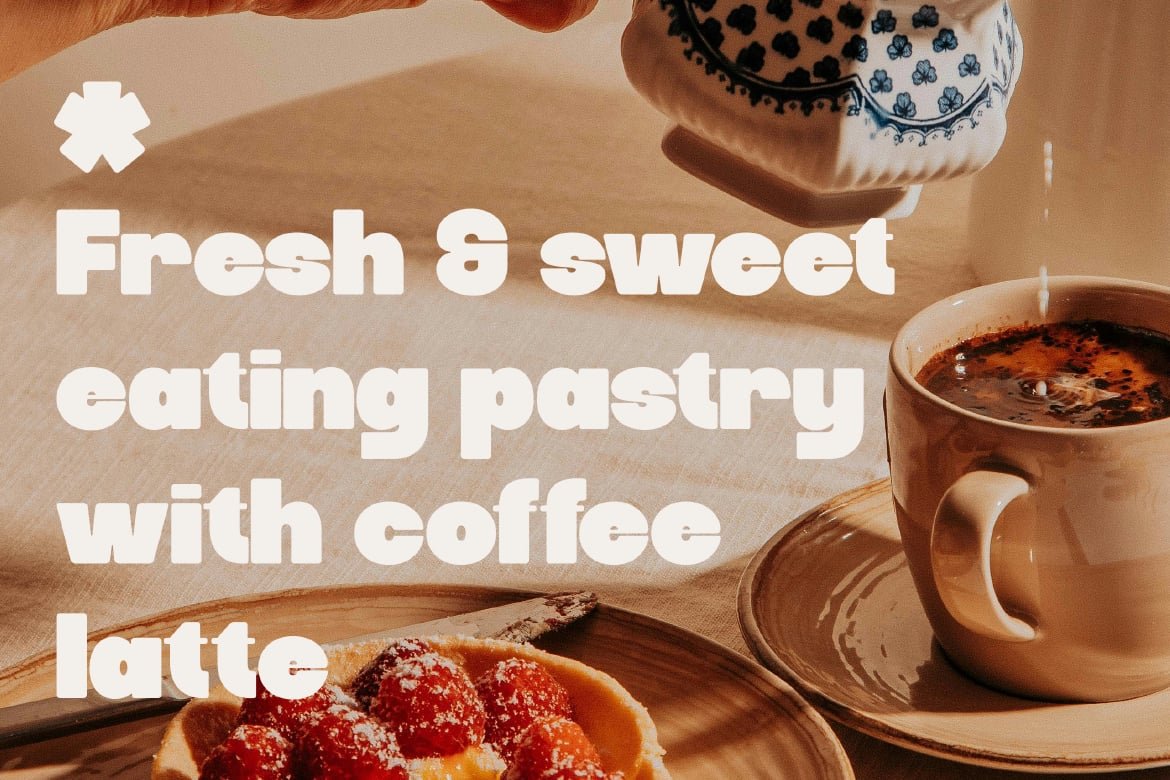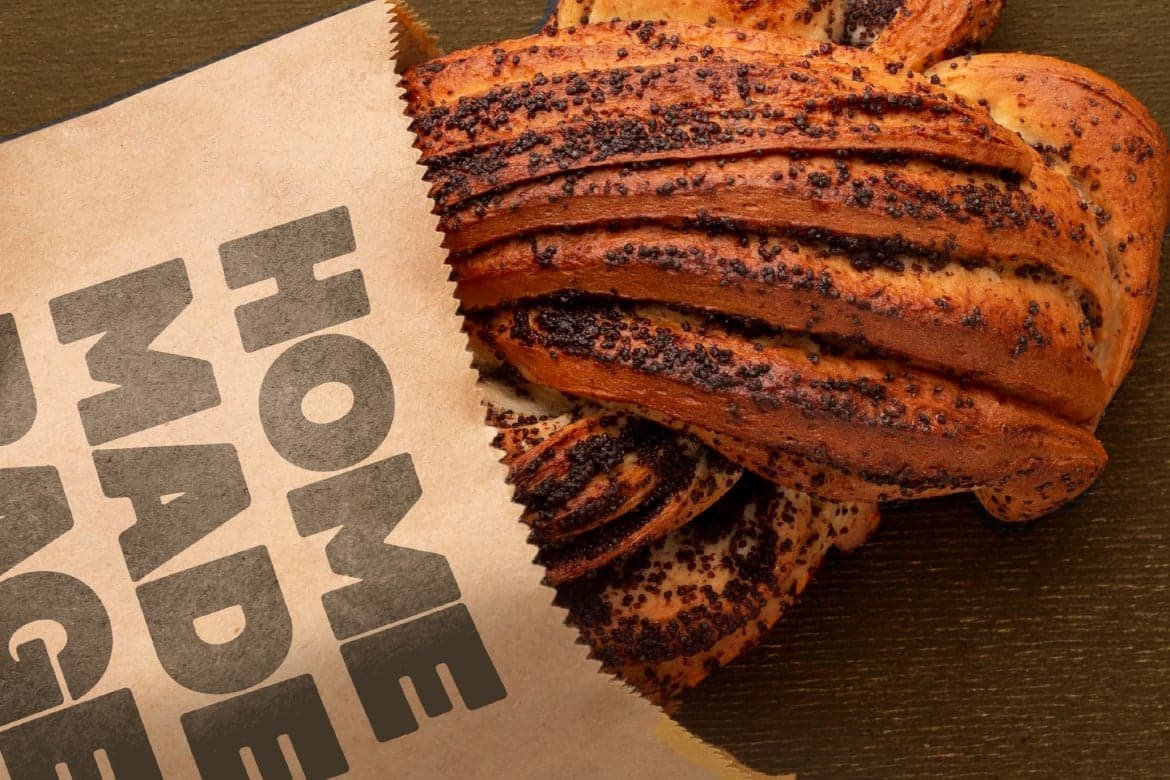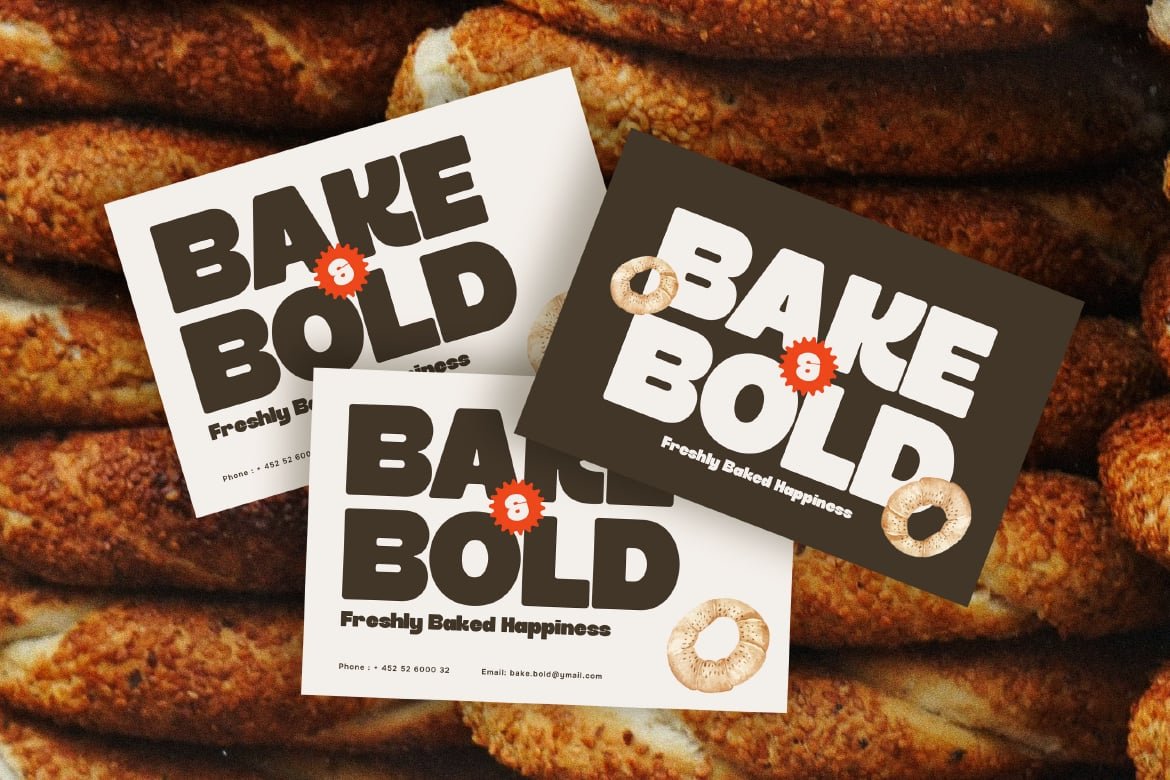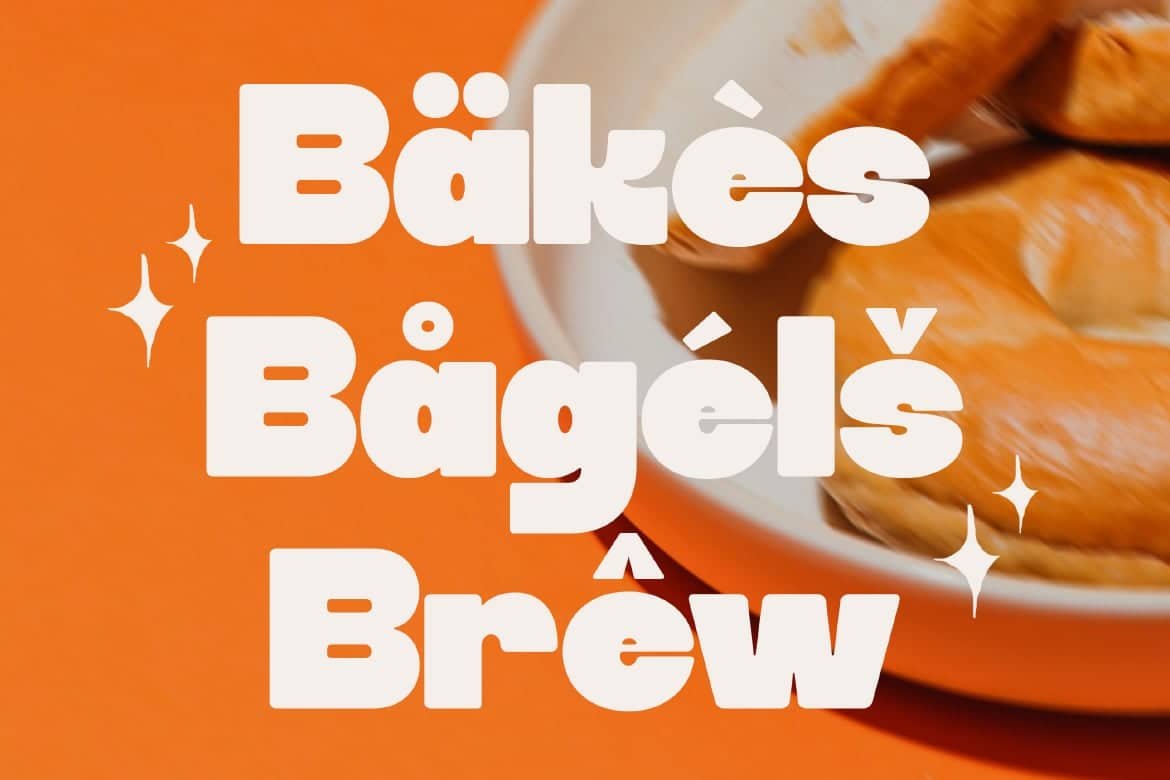
Bold Sans Display Font - Rokas
Rokas is a unique bold chunky display font that brings a fun, expressive, and high-impact style to your designs. Defined by its thick proportions and playful shapes, this font creates a strong visual rhythm that feels lively, modern, and full of personality. Every letter is crafted to stand out, making Rokas perfect for designs that need to grab attention instantly. Its bold and rounded structure gives a friendly yet confident appearance, allowing it to work across a wide range of creative projects.
Who Should Use Rokas?
Rokas is ideal for designers, creatives, and brands who want a bold and playful typeface with a unique character. Itβs especially suitable for projects that require eye-catching typography with a modern and fun vibe.
Playful and bold branding
Posters and large headlines
Kids and creative projects
Packaging design
Social media content
Advertising and promotions
Event graphics
Fun typography and quotes